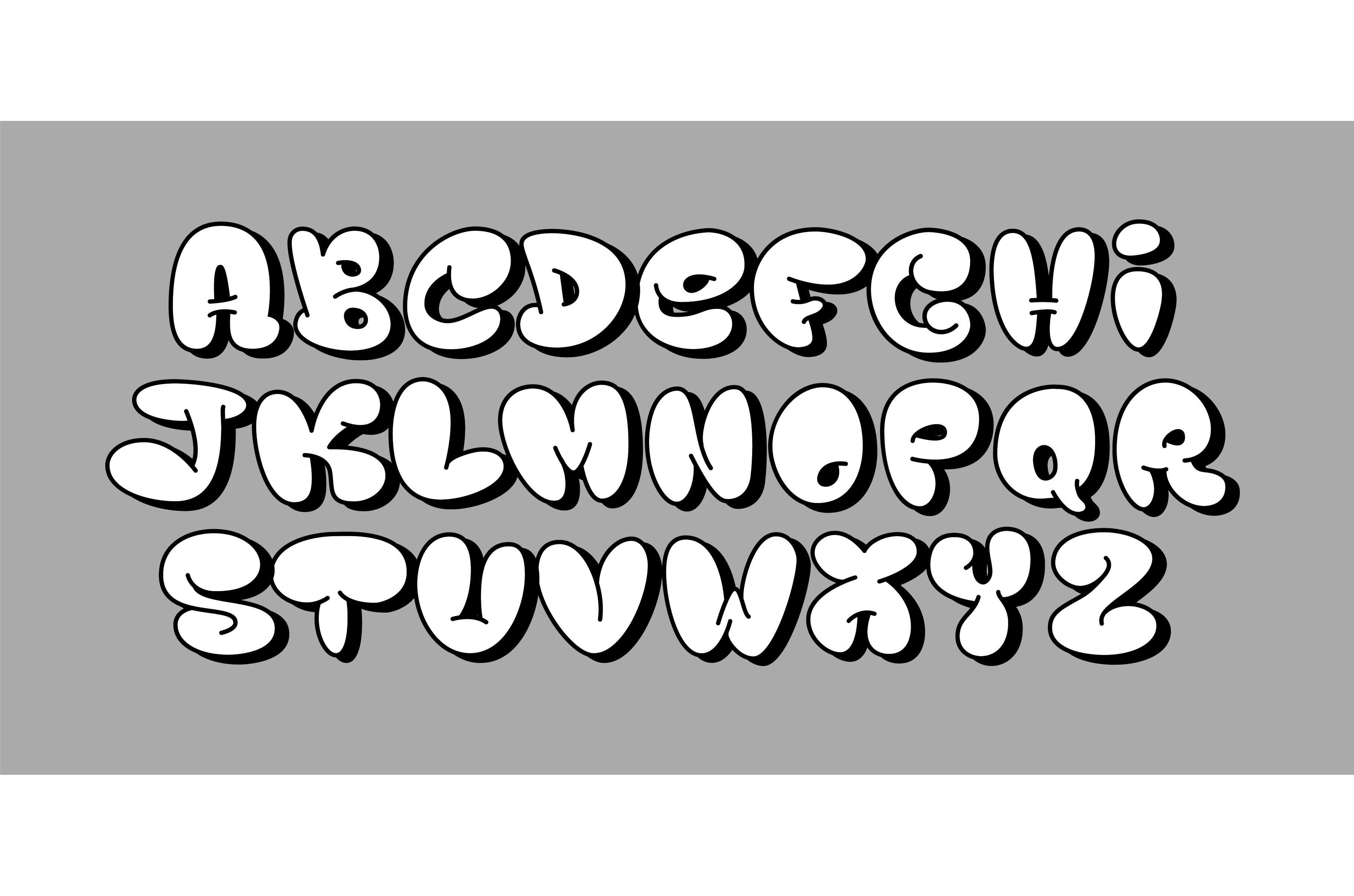
Bubble graffiti font. Inflated
Bubble graffiti font. Inflated street art letters alphabet, bold uppercase font with 3D shadow effect. Cool urban wall art bubbly typography vector set.